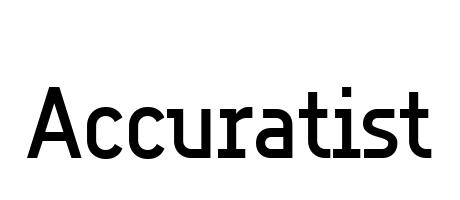
Accuratist
By Jovanny Lemonad
Accuratist, a font name itself, projects a bold, sans-serif personality. Its clean lines and even weight across letters suggest precision and accuracy, mirroring the word's meaning. The slightly condensed letterforms add a touch of modernity and efficiency, creating a professional yet approachable feel.